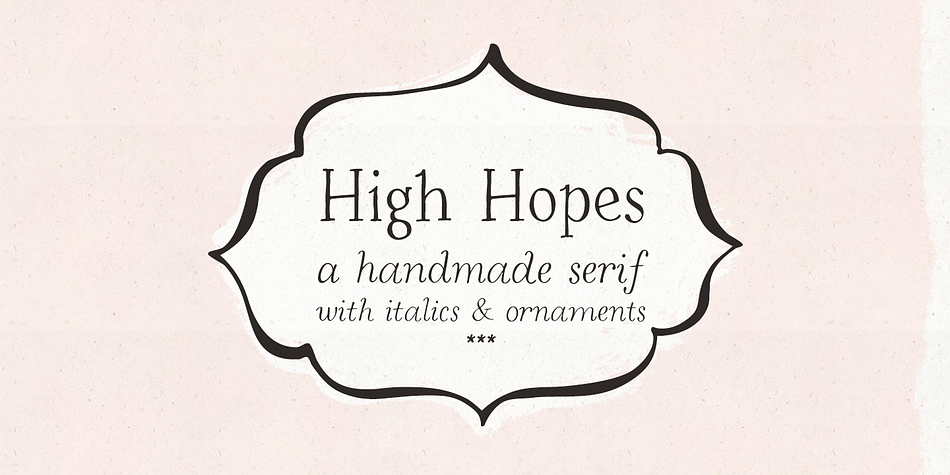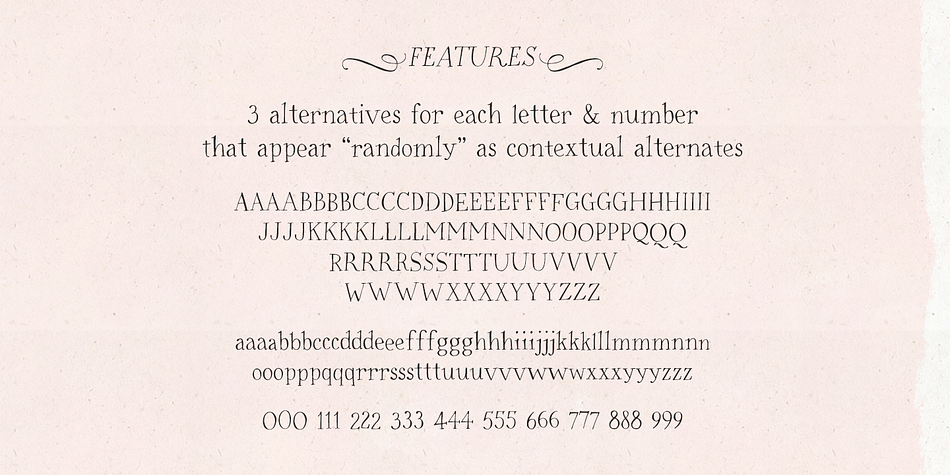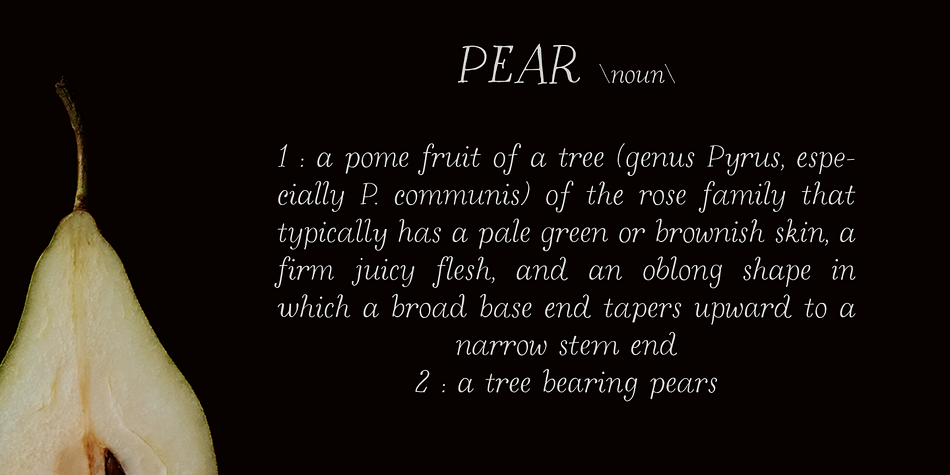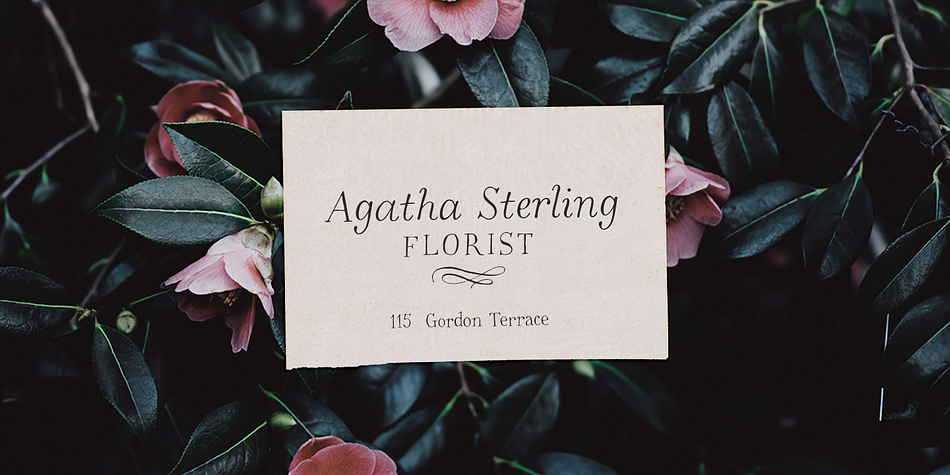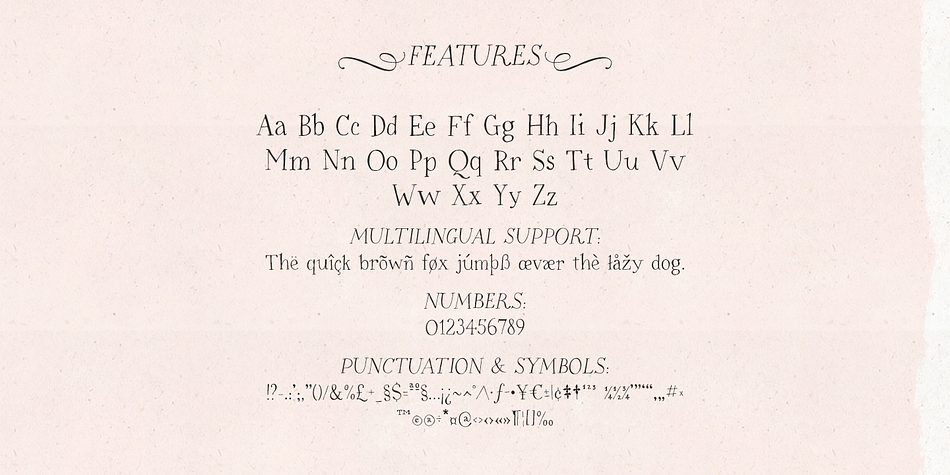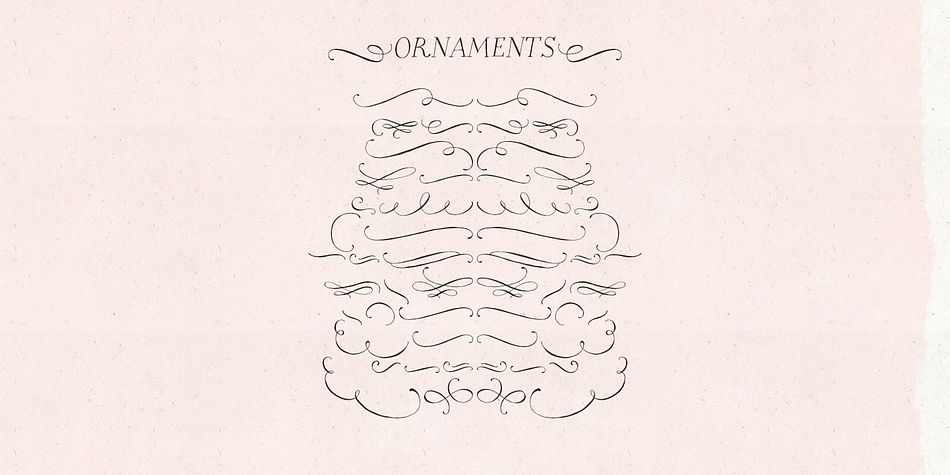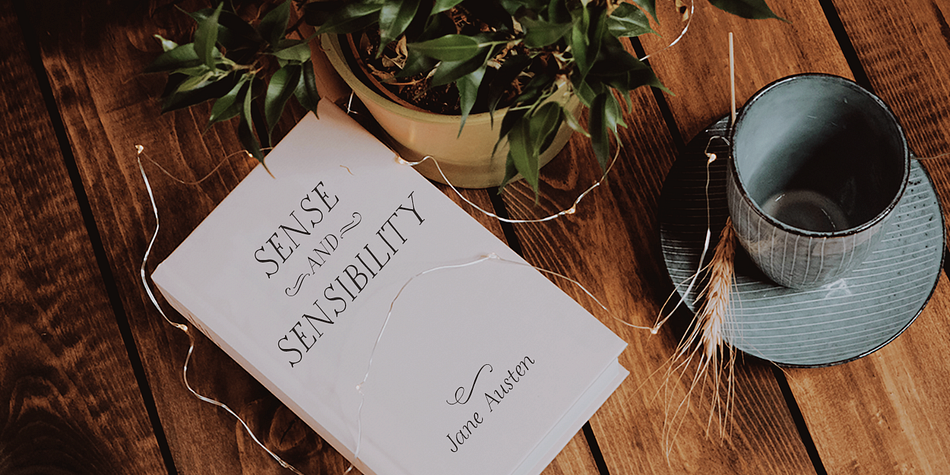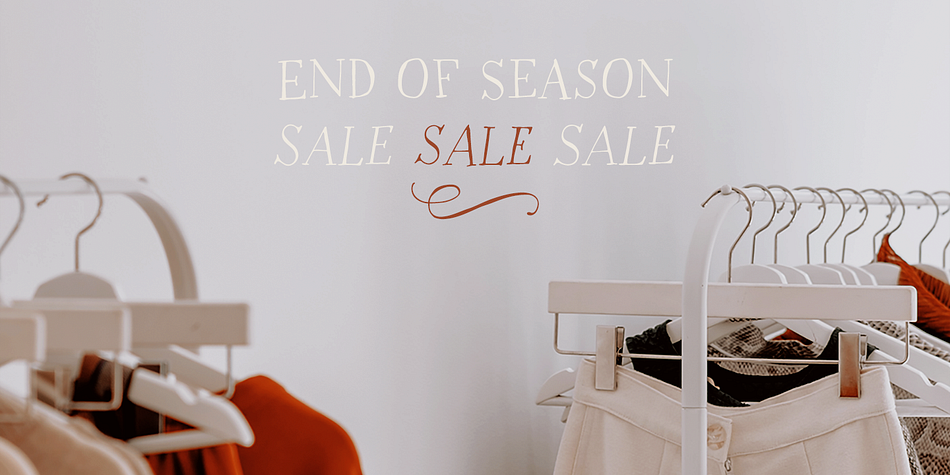
Designed by Ana Parracho, High Hopes is a display serif, hand display and dingbat font family. This typeface has three styles and was published by Ana's Fonts.
High Hopes is a quirky handmade serif font with variations that show up “randomly” through contextual alternates, true italics and ornaments. Use this font in designs such as postcards and notes, posters, logotypes, social media posts, branding and packaging.
High Hopes includes:
- Regular font with three contextual alternates for each letter (separate alternate font files are also included)
- Italic font with three contextual alternates for each letter (separate alternate font files are also included)
- Ornaments font with swashes and frames